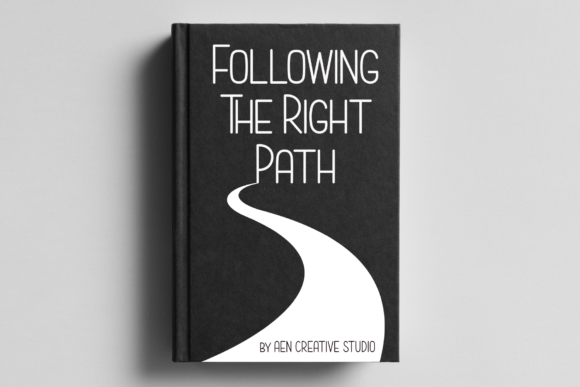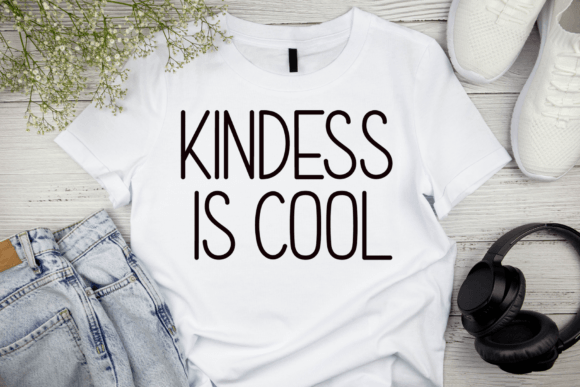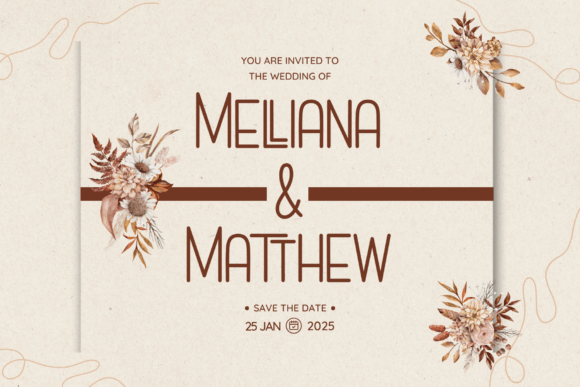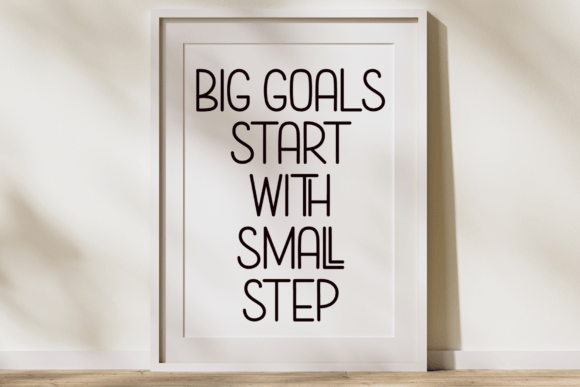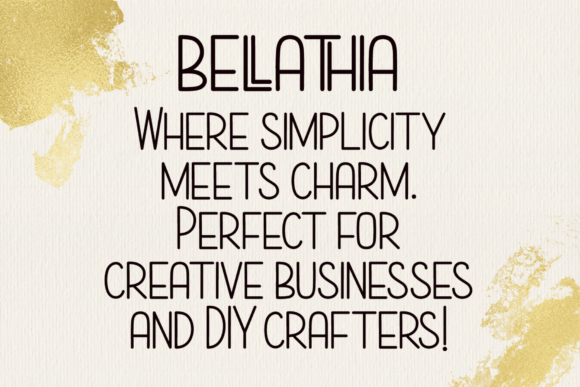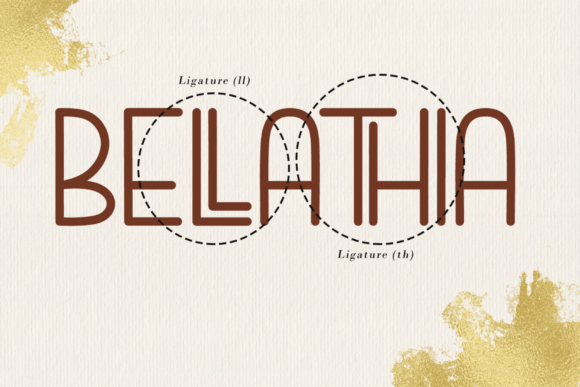
Bellathia Font: The Perfect Blend of Personal and Professional Style
Are you on the hunt for a font that strikes the perfect balance between personal and professional? Look no further than Bellathia, a stunning monoline handwritten font that brings simplicity and style together in one beautiful package. Whether you’re a designer, crafter, or entrepreneur, Bellathia is the ideal choice for adding a touch of warmth and personality to your designs.
What is Bellathia Font?
Bellathia is a monoline handwritten font that boasts a clean and minimalistic aesthetic. Its simple, yet elegant design makes it perfect for a wide range of applications, from logos and branding to wedding invitations, handmade cards, and business designs. With Bellathia, you can add a personal touch to your projects without sacrificing professionalism.
Key Features of Bellathia Font
- Monoline Handwritten Style: Bellathia’s monoline handwritten style gives it a unique and distinctive look that’s both personal and professional.
- Clean and Minimalistic Aesthetic: The font’s clean and minimalistic design ensures that your message shines through beautifully, without any distractions.
- Versatile: Bellathia is perfect for a wide range of applications, including logos, branding, wedding invitations, handmade cards, and business designs.
- Easy to Read: The font’s clear and legible design makes it easy to read, even at small sizes.
Bellathia is a dream font for designers and crafters alike. Its unique blend of personal and professional style makes it perfect for a wide range of projects, including:
- Logos and Branding: Use Bellathia to create a stunning logo that reflects your brand’s personality and style.
- Wedding Invitations: Add a touch of elegance and sophistication to your wedding invitations with Bellathia.
- Handmade Cards: Use Bellathia to create beautiful, one-of-a-kind handmade cards for any occasion.
- Business Designs: Perfect for business designs, such as brochures, flyers, and social media graphics.
Why Choose Bellathia Font?
So, why choose Bellathia font for your next project? Here are just a few reasons:
- Unique and Distinctive: Bellathia’s monoline handwritten style sets it apart from other fonts, making your designs stand out from the crowd.
- Easy to Use: The font is easy to read and works well in a variety of contexts, making it a versatile choice for designers and crafters.
- Personal and Professional: Bellathia strikes the perfect balance between personal and professional style, making it perfect for a wide range of applications.
Make Your Designs Stand Out with Bellathia
In conclusion, Bellathia font is a stunning monoline handwritten font that combines simplicity and style in one beautiful package. Perfect for designers, crafters, and entrepreneurs, Bellathia brings a touch of warmth and personality to every design. With its clean and minimalistic aesthetic, versatility, and ease of use, Bellathia is the ideal choice for a wide range of applications. So, make your designs stand out with Bellathia – download it today and start creating!